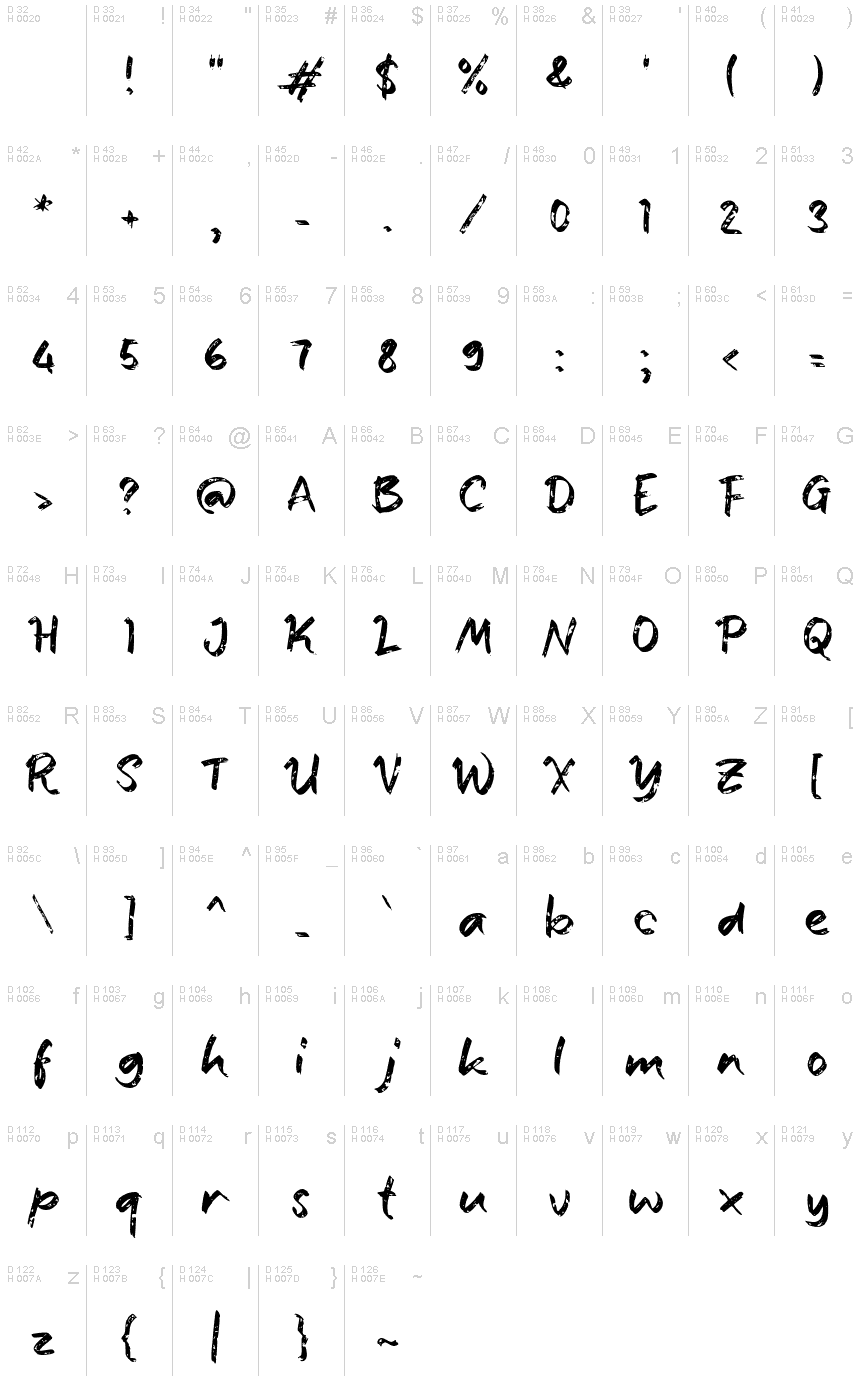
Either Peace
Peace is a captivating brush font created by wep, perfect for projects that demand a touch of artistic elegance. With its fluid strokes and unique texture, this semi-bold typeface adds a sense of creativity and charm to any design. Whether it's a logo for an upscale fashion brand, an eye-catching poster for a music festival, or even wedding invitations that exude romance, Either Peace is suitable for all. Its versatility makes it an ideal choice for branding, packaging, social media graphics, and much more.